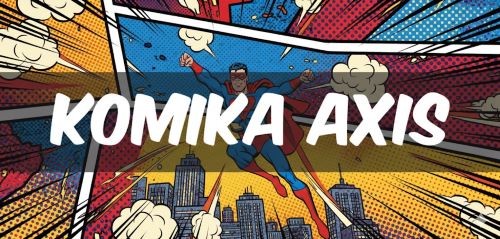
Komika Axis Font
Komika Axis Font is a bold, comic-style sans-serif typeface designed for strong readability and expressive impact. With its slightly angled strokes and clean structure, it works perfectly for comics, posters, speech bubbles, headlines, and fun branding. Komika Axis delivers a playful yet professional look that keeps text clear, energetic, and engaging.
➤ Font Name: Komika Axis
➤ Designer: Vigilante Typeface Corporation
➤ Style: Comic
➤ Designer: Vigilante Typeface Corporation
➤ Style: Comic